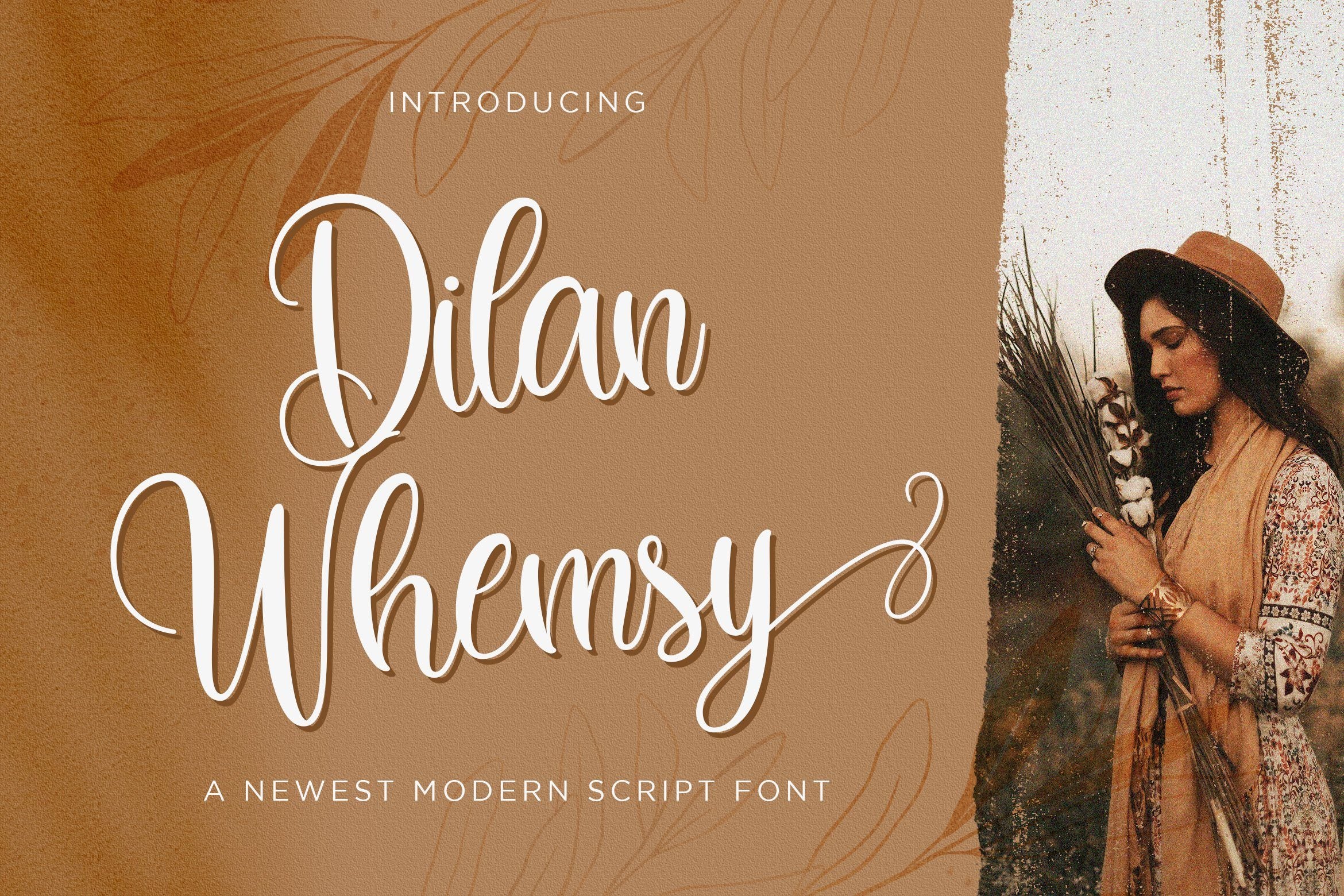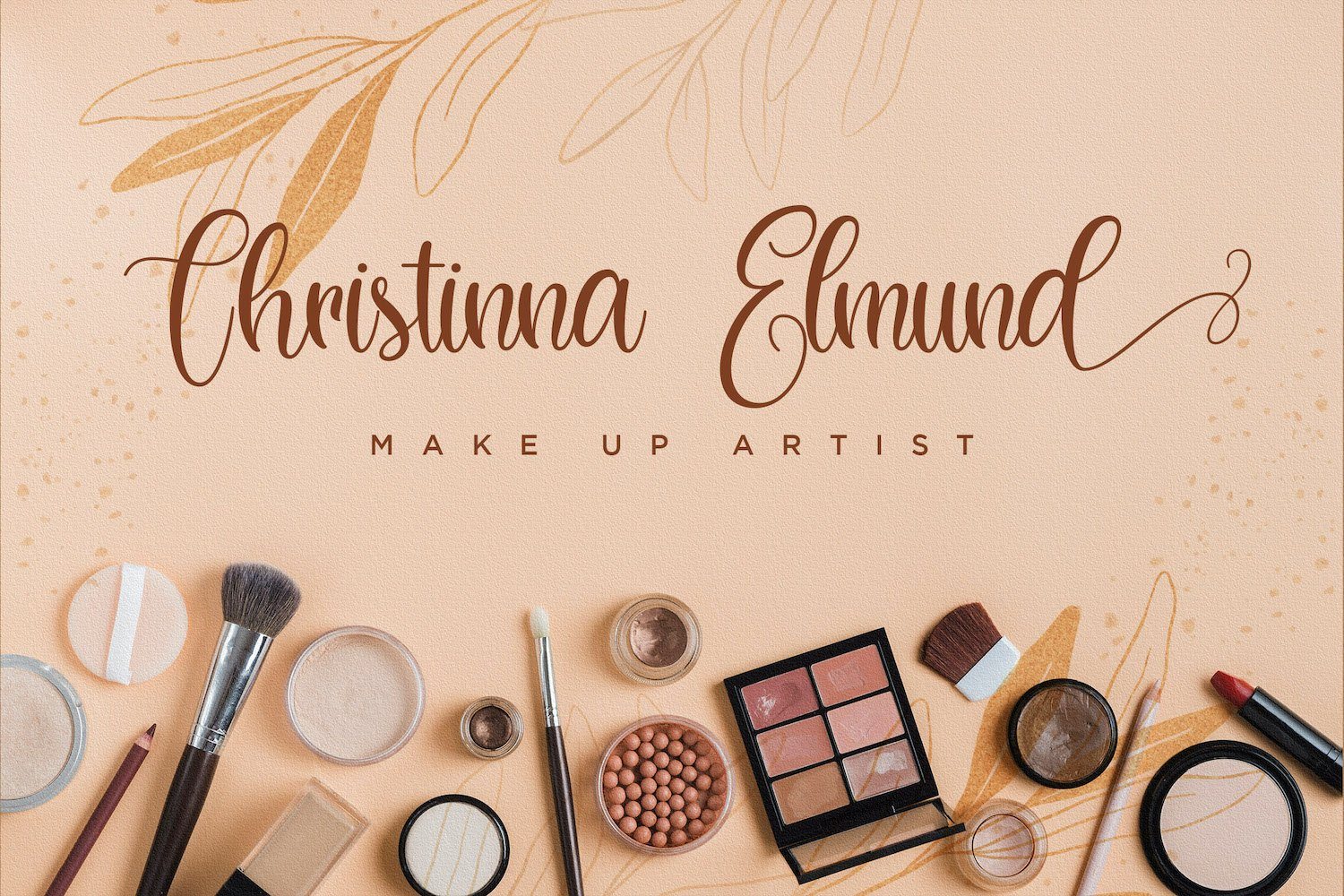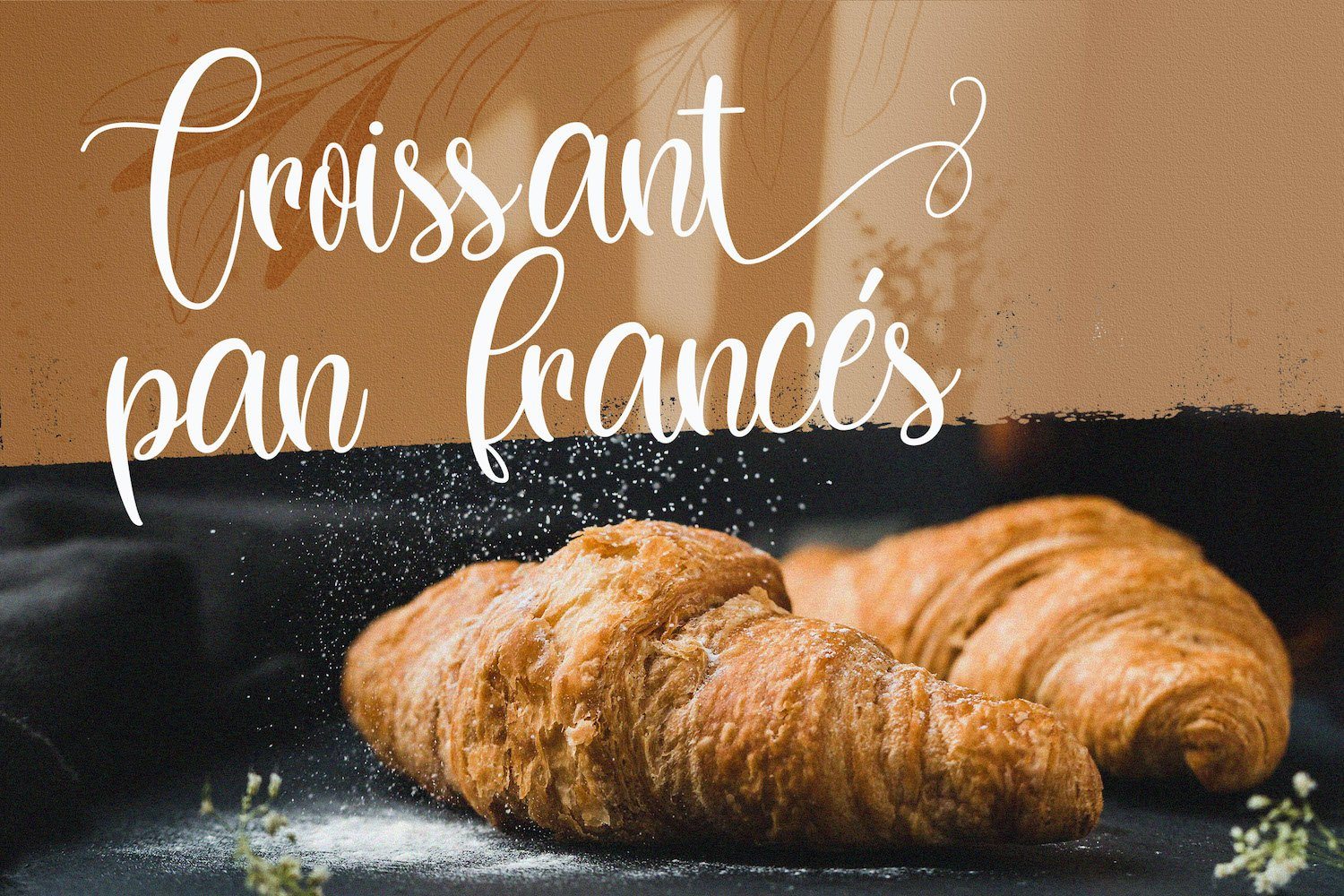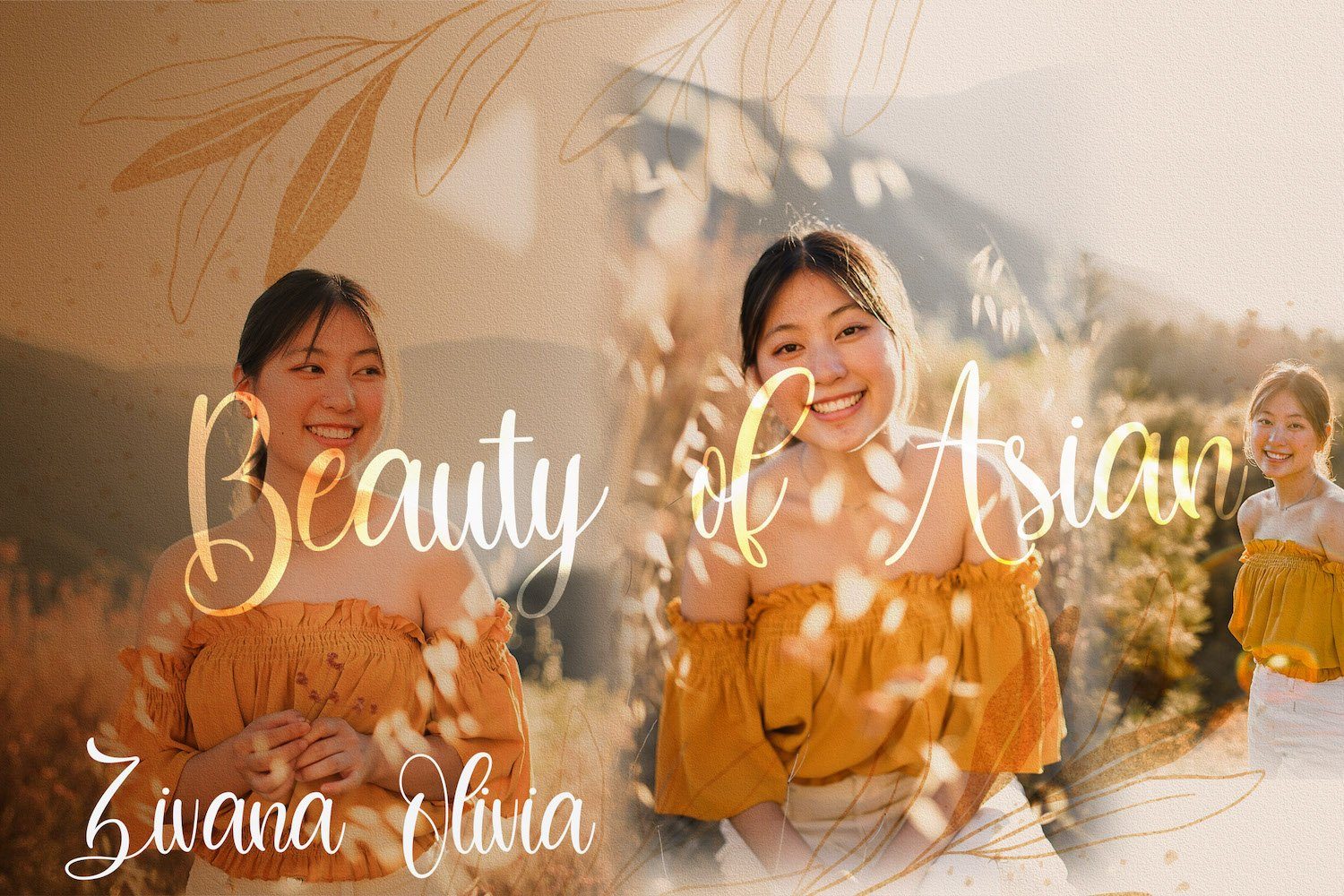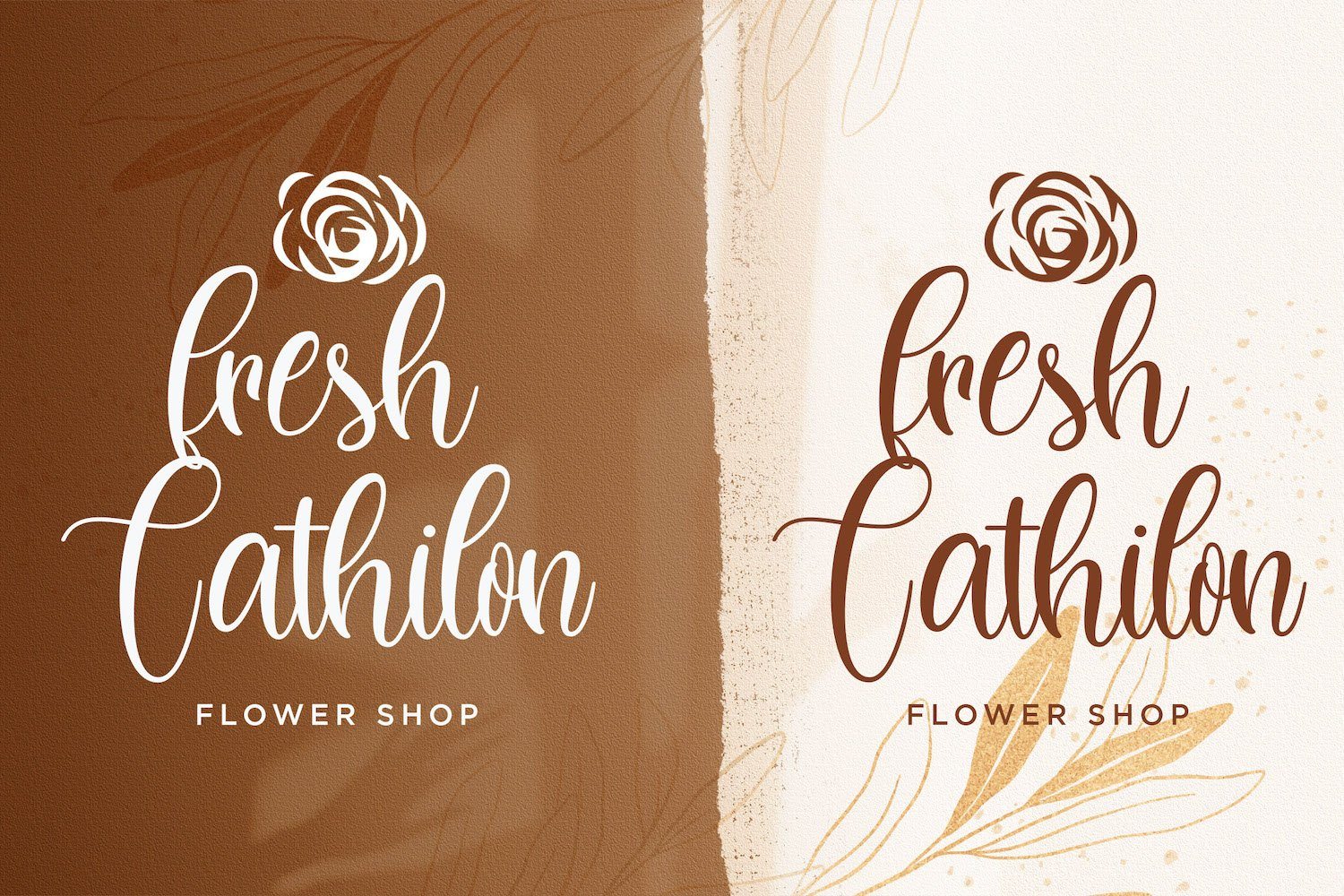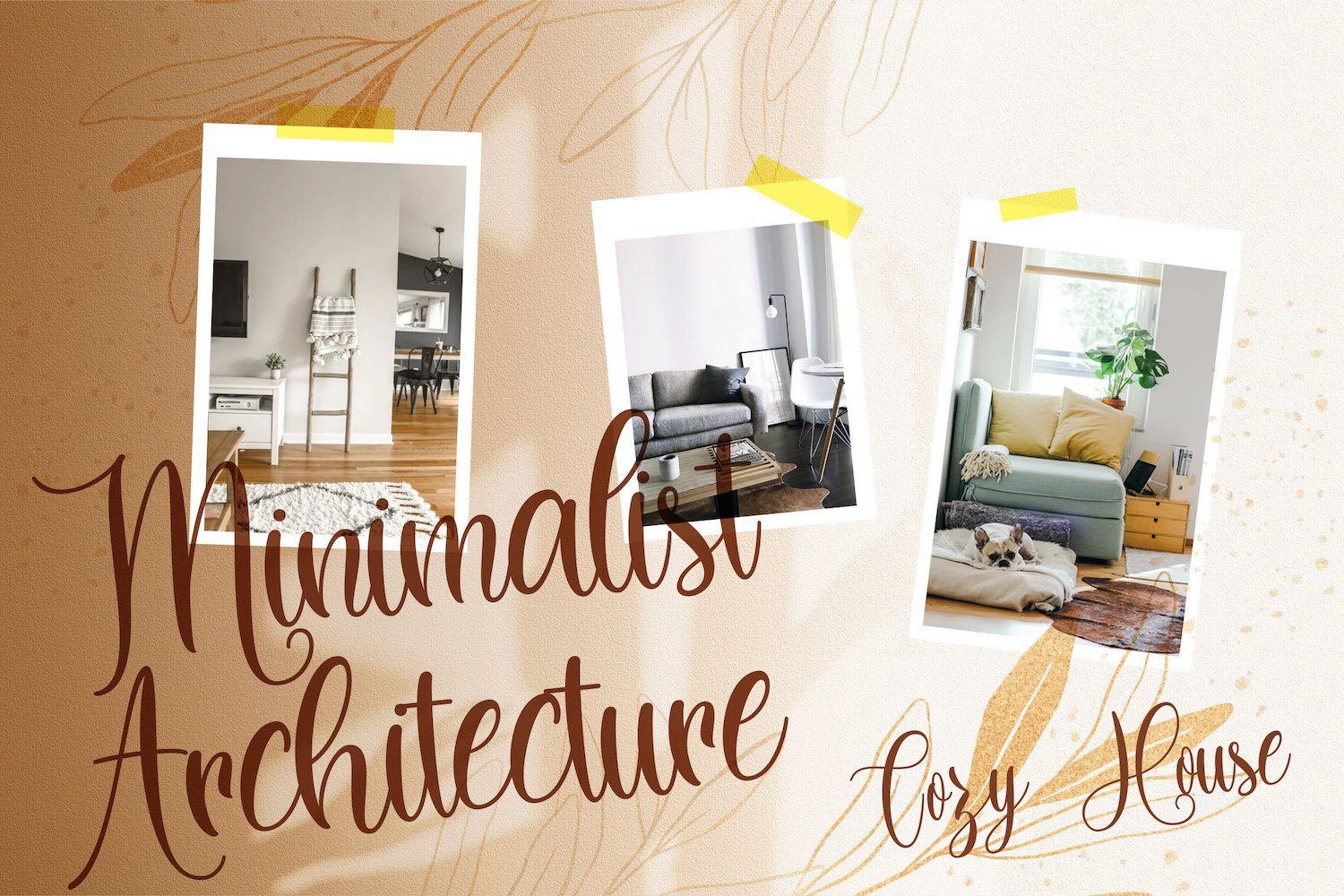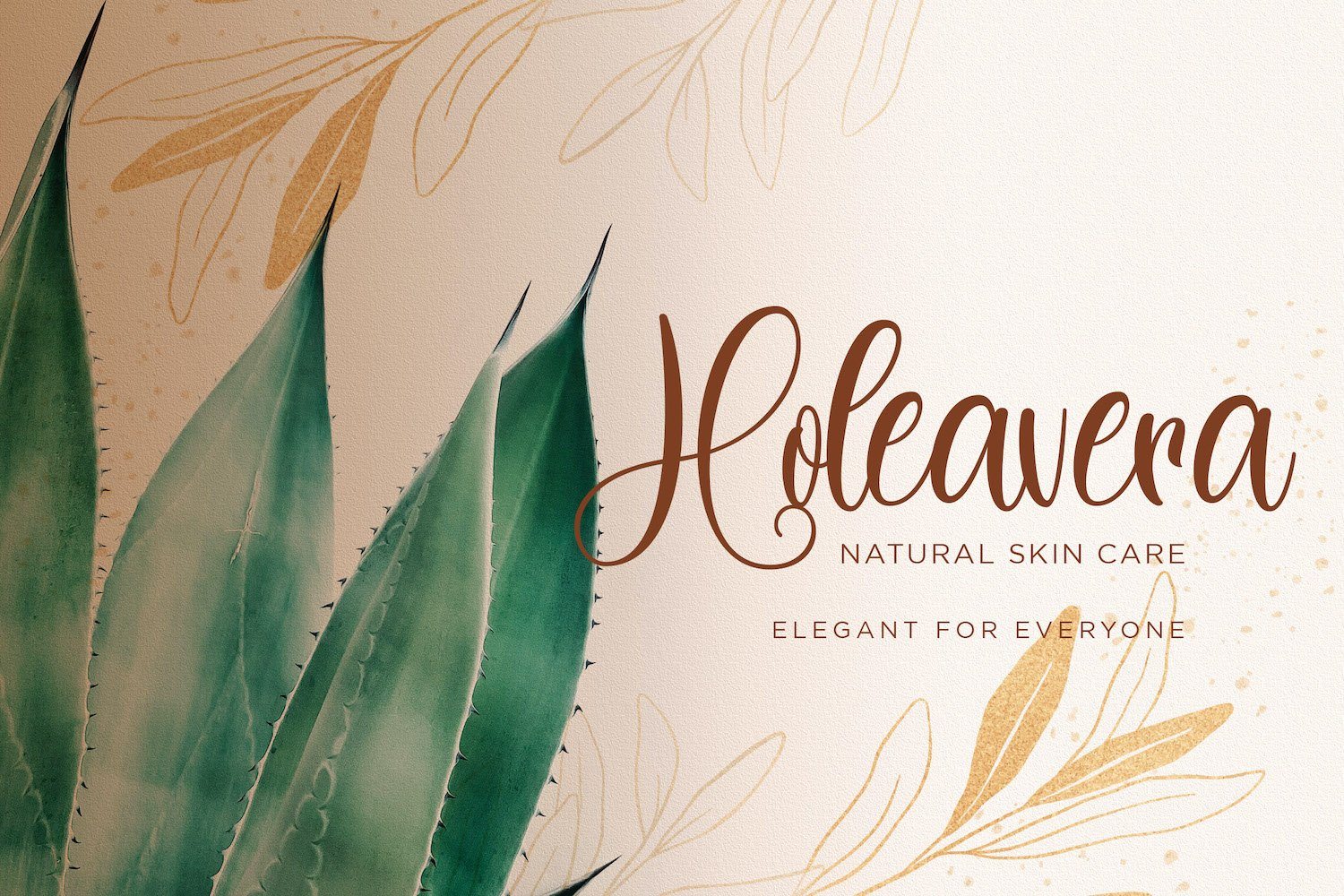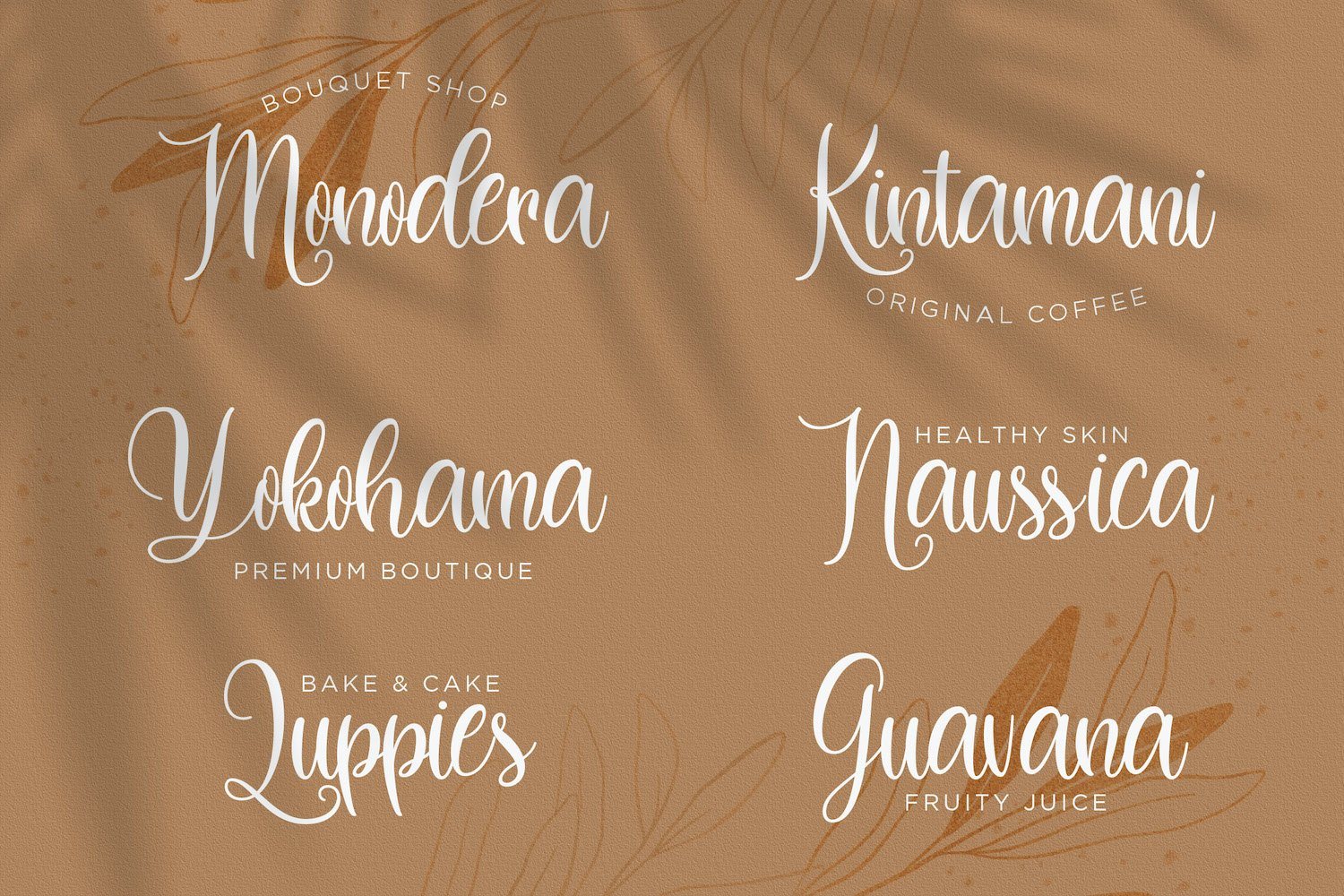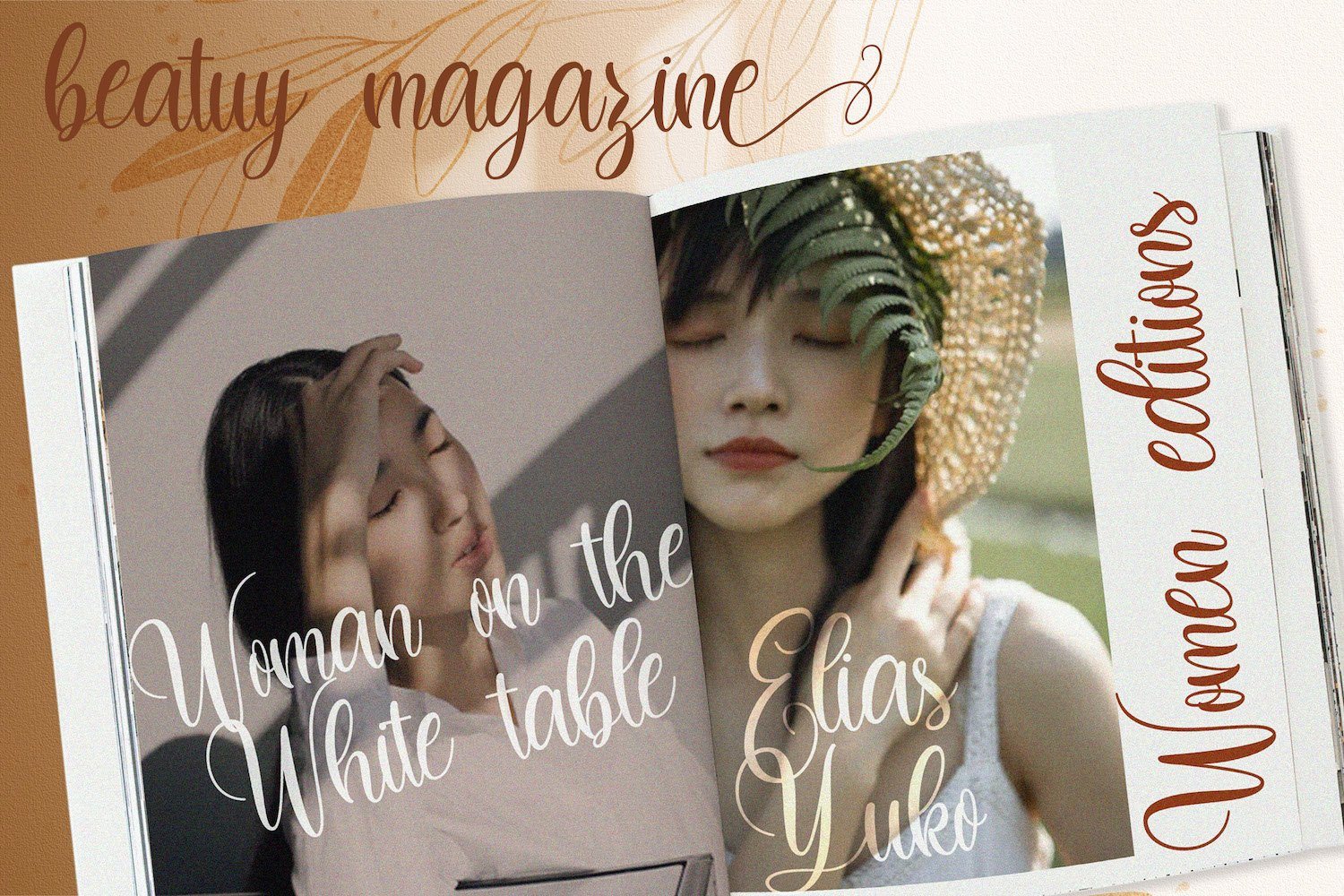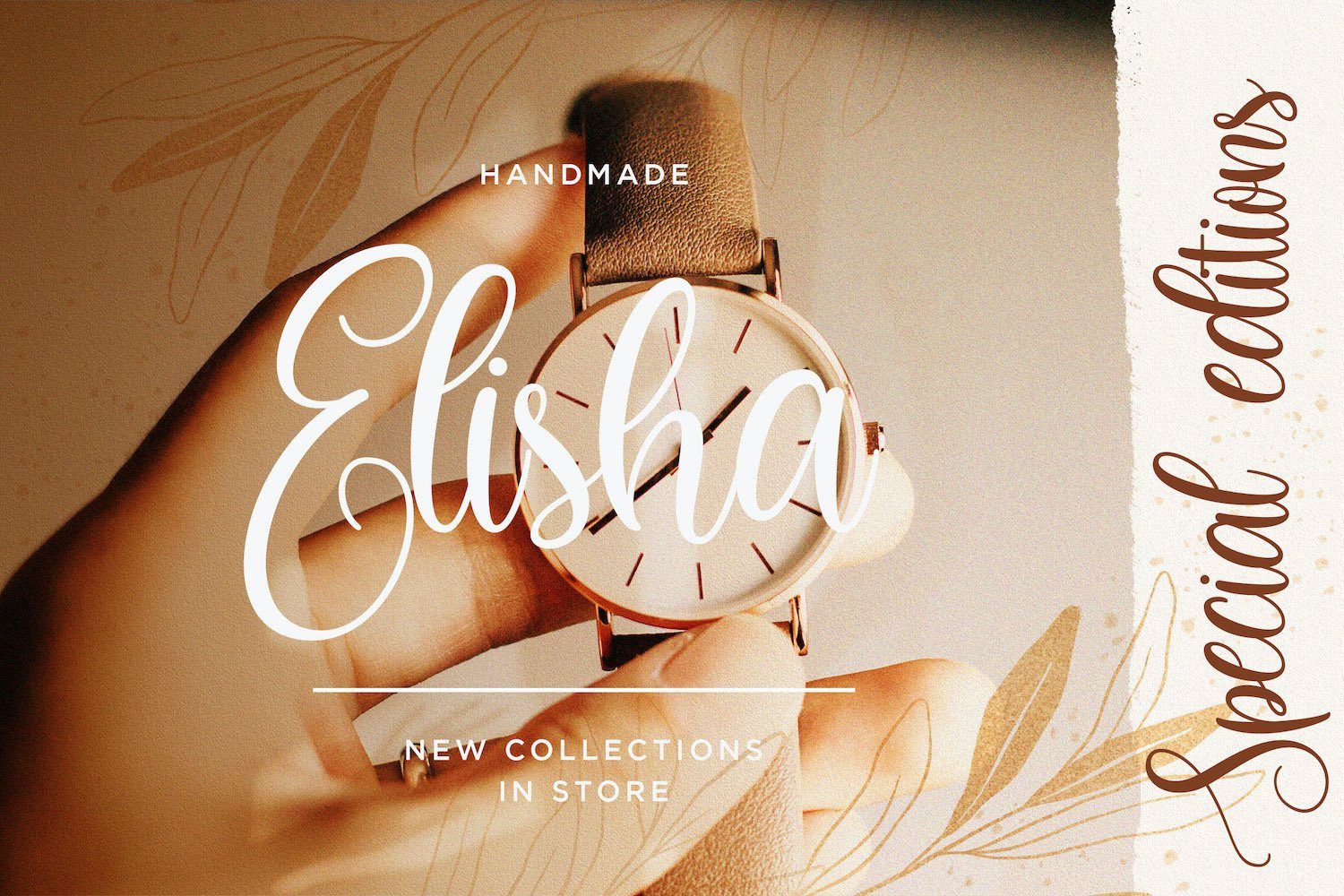
Dilan Whemsy - Modern Script Font
Introducing Dilan Whemsy - Modern Script Font
Dilan Whemsy is a delicate, elegant and flowing handwritten font. It has beautiful and well balanced characters and as a result, it matches a wide pool of designs. Add it to your most creative ideas and notice how it makes them come alive! This font is PUA encoded which means you can access all of the cute glyphs and swashes with ease! It also features a wealth of special features including alternate glyphs and ligatures.
Introducing Dilan Whemsy - Modern Script Font
Dilan Whemsy is a delicate, elegant and flowing handwritten font. It has beautiful and well balanced characters and as a result, it matches a wide pool of designs. Add it to your most creative ideas and notice how it makes them come alive! This font is PUA encoded which means you can access all of the cute glyphs and swashes with ease! It also features a wealth of special features including alternate glyphs and ligatures.